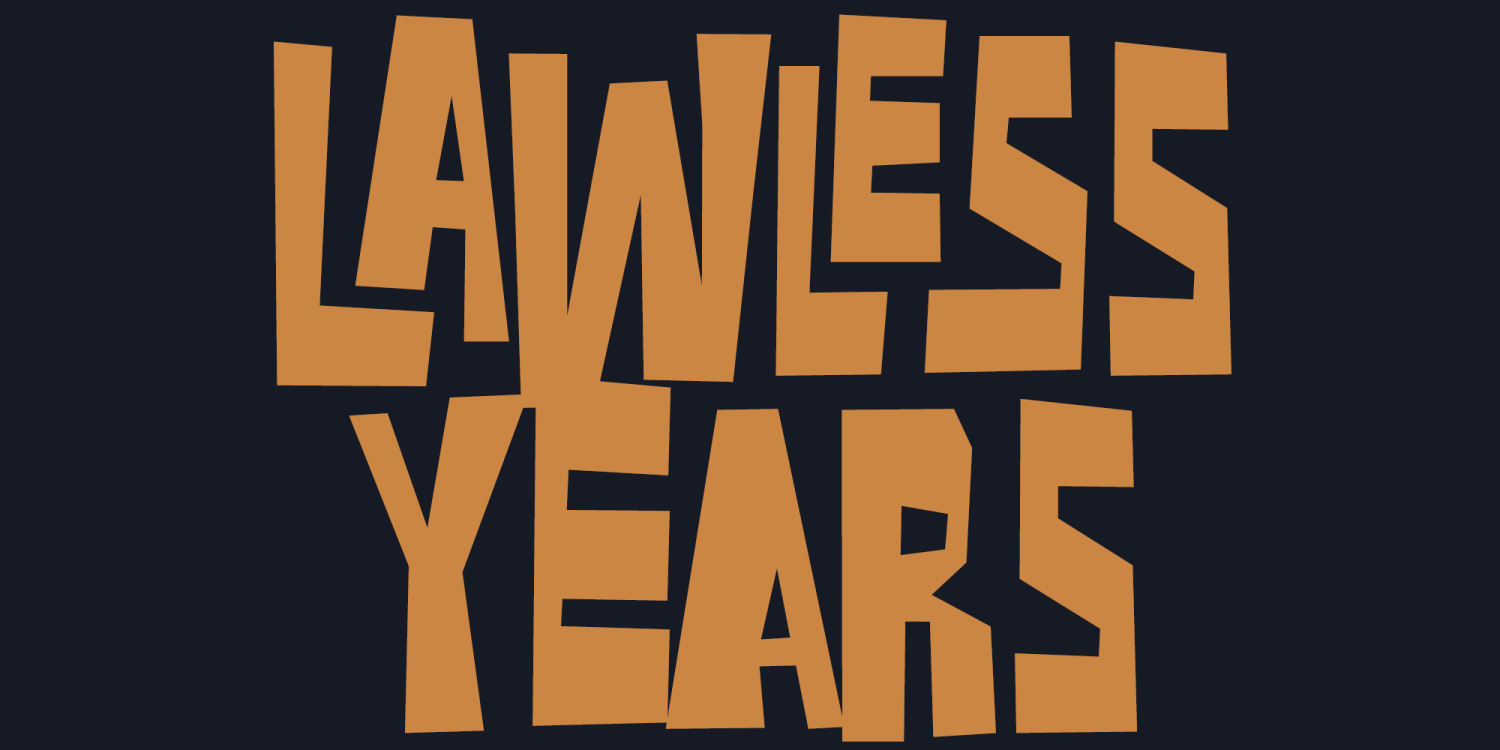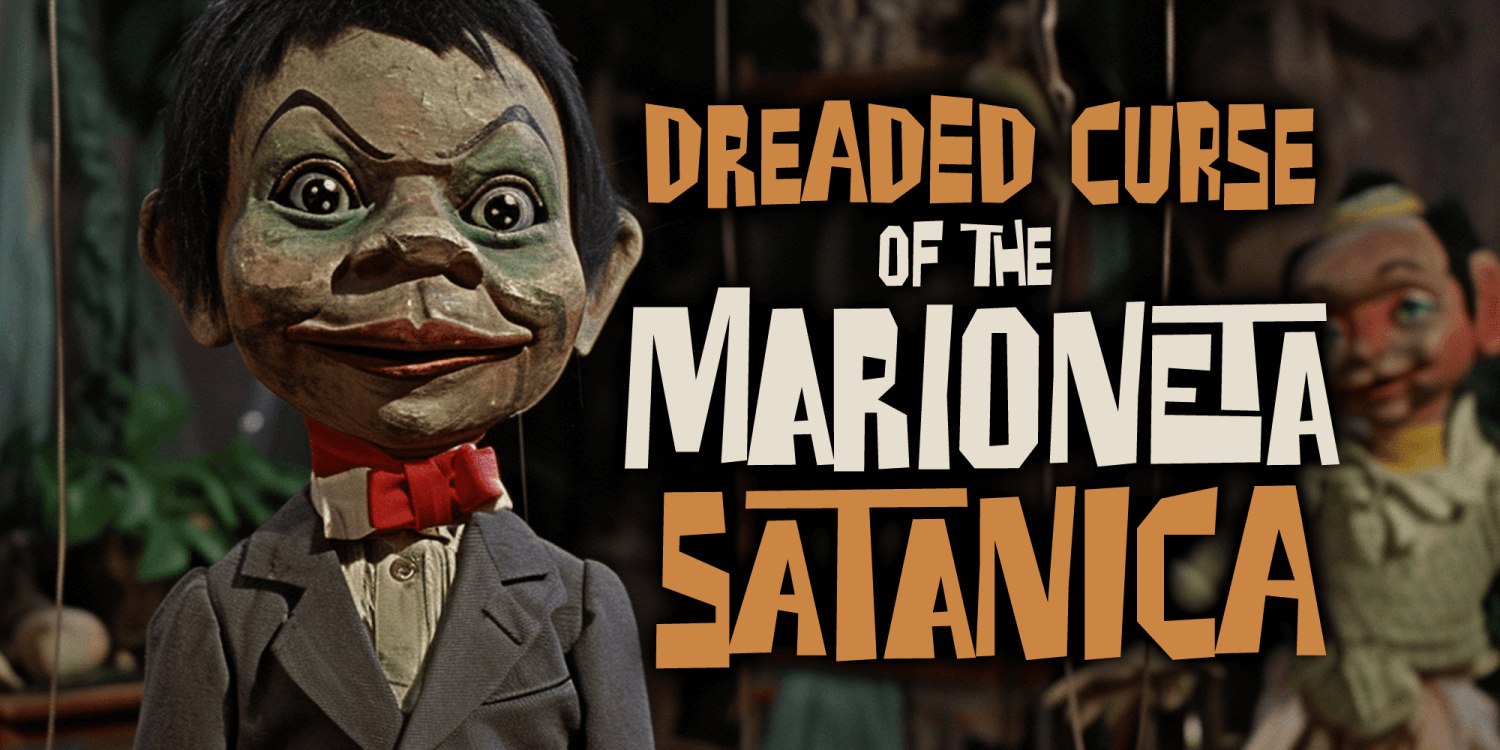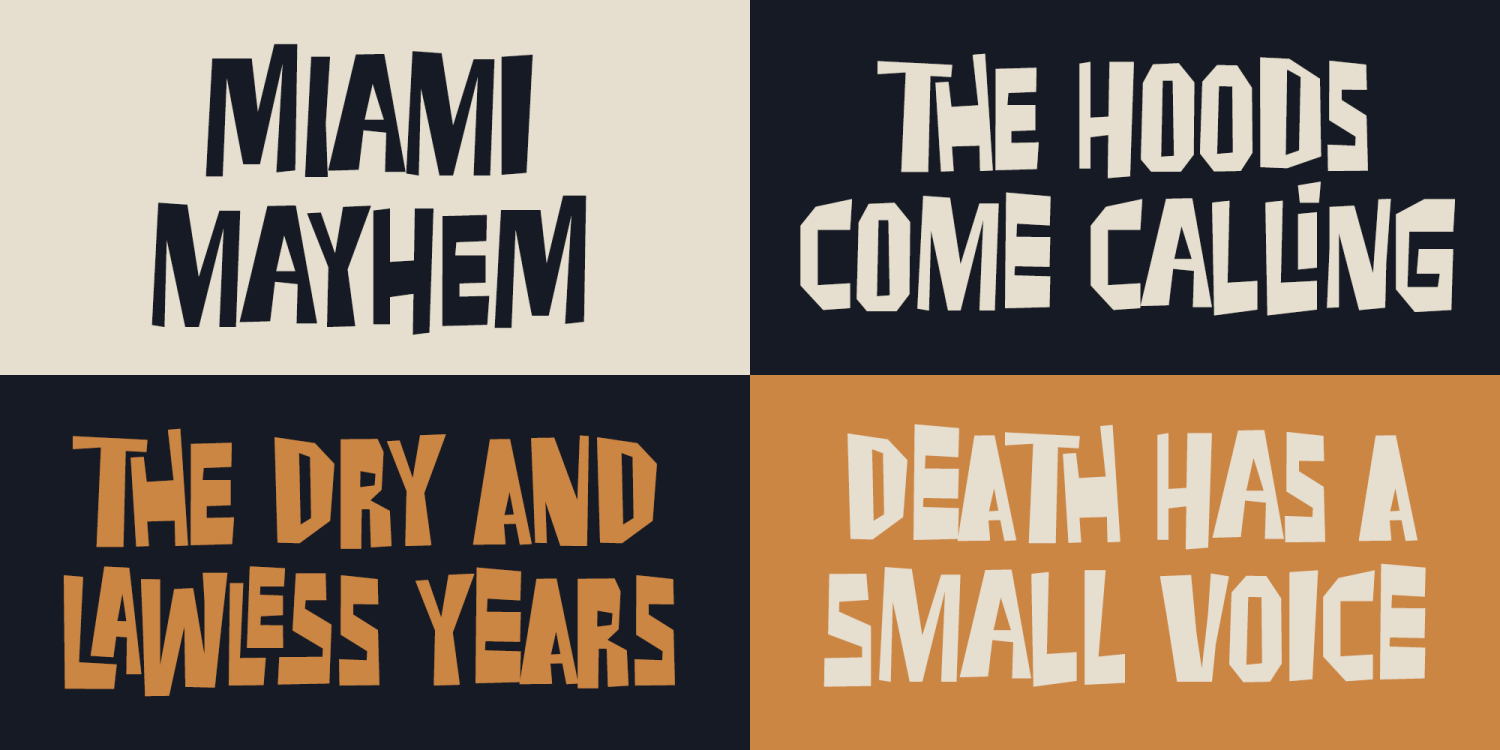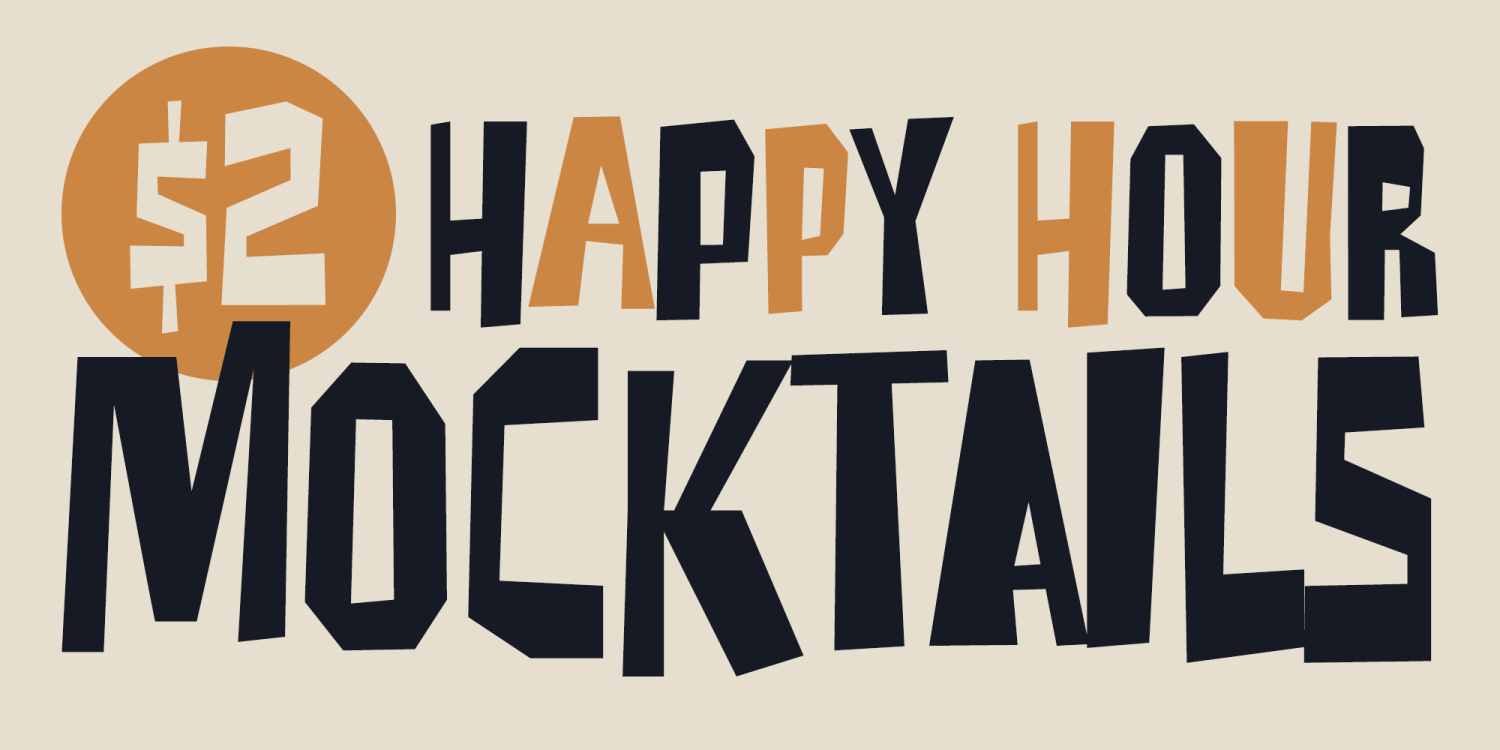
Lawless Years
Lawless Years is a bold, jagged display face inspired by the hand-lettered typography of vintage pulp paperbacks—especially the gritty, angular style seen across mid-century crime and paperback covers. Built to feel loud, imperfect, and a little dangerous, its sharp cuts and uneven rhythm bring instant pulp energy to titles that need drama, menace, and swagger without looking like a clean geometric display.
To keep your layouts from feeling repetitive, Lawless Years includes a clever set of OpenType features that add automatic variation as you type. The ligatures feature continuously toggles between uppercase and alternate lowercase letterforms regardless of what you enter, creating a randomized, cut-and-paste paperback feel with no manual swapping. Turning on stylistic alternates unlocks additional nested ligatures that pepper extra character into your typesetting automatically, giving you that hand-assembled, cover-lettering grit in a single click.
Use Lawless Years for pulp and noir-inspired graphics, crime and thriller titling, retro paperback covers, movie posters, band flyers, zines, Halloween or horror themes, editorial headlines, and branding that wants an aggressive vintage voice with built-in variation and typographic tricks.